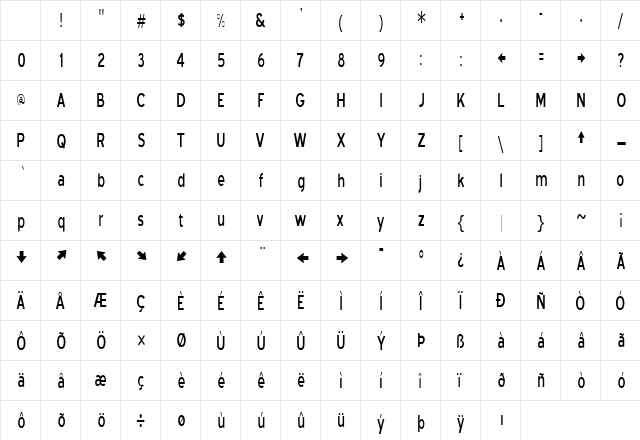
Blue Highway Condensed is a composed and adaptable typeface that performs quietly and consistently across a wide range of design contexts. Its narrow stance lets it pack a punch even in space-constrained designs.
Pro Tip: Use Blue Highway Condensed in both headline and body roles to test its range before committing to a single application.